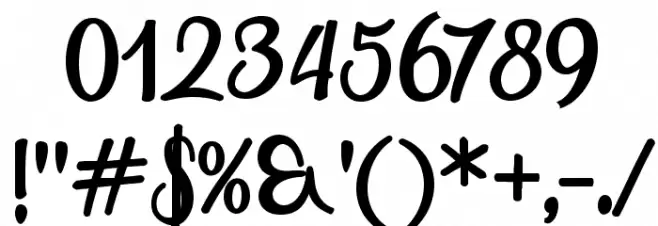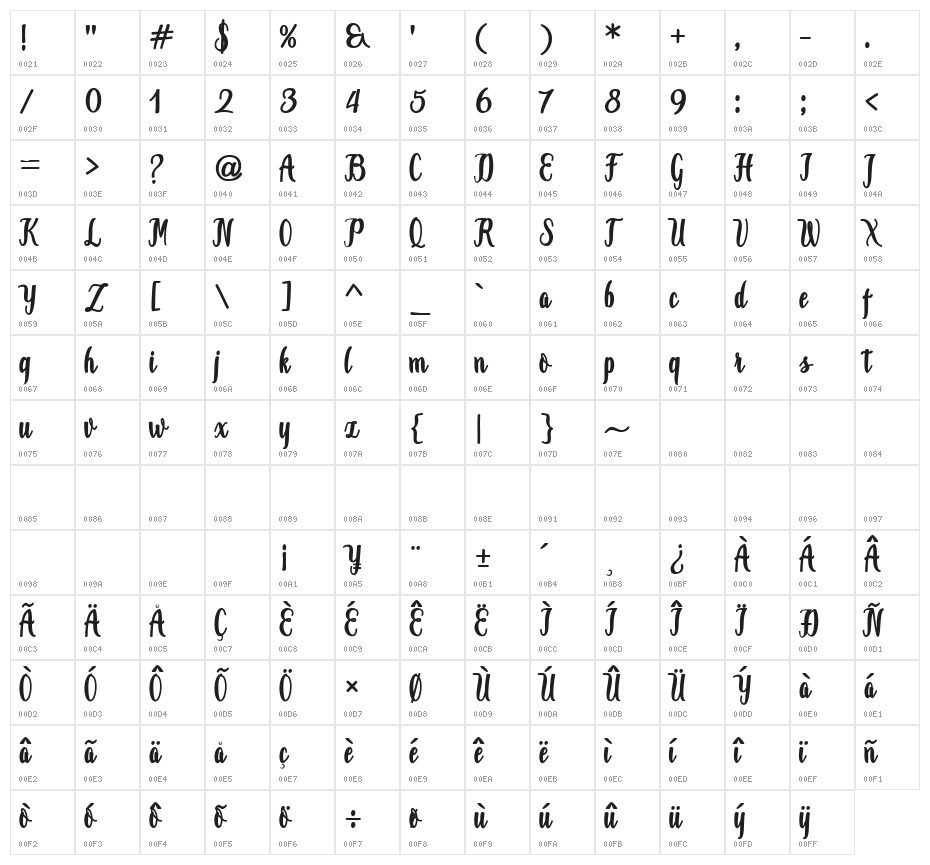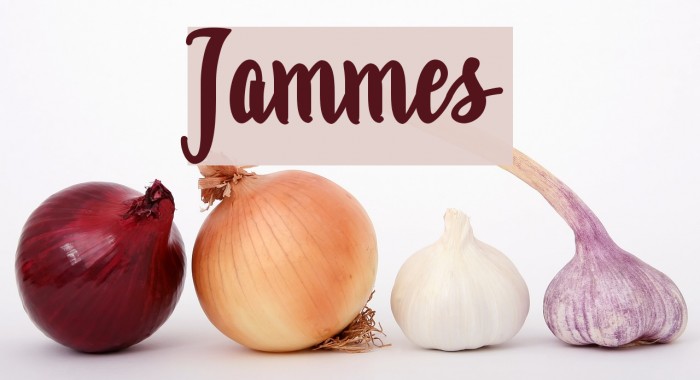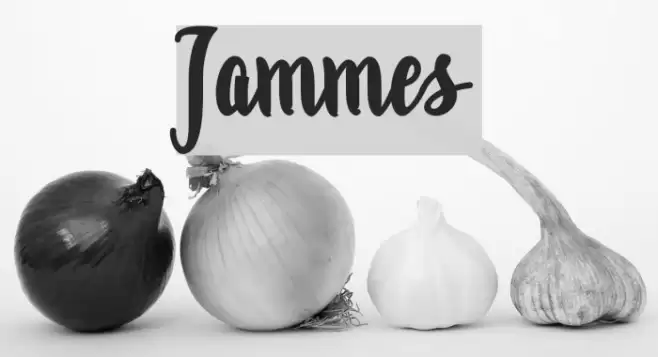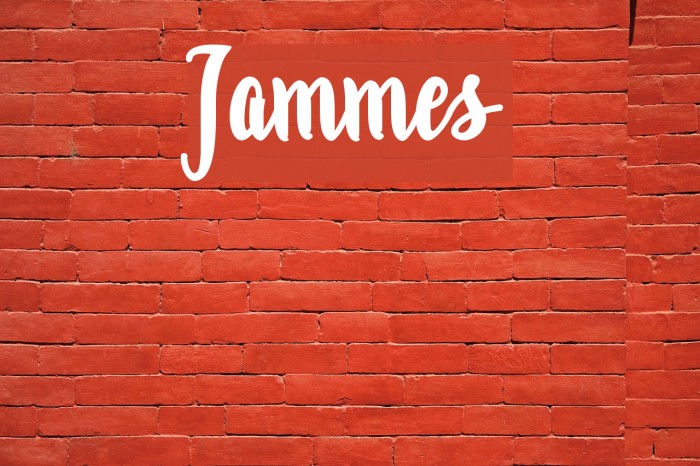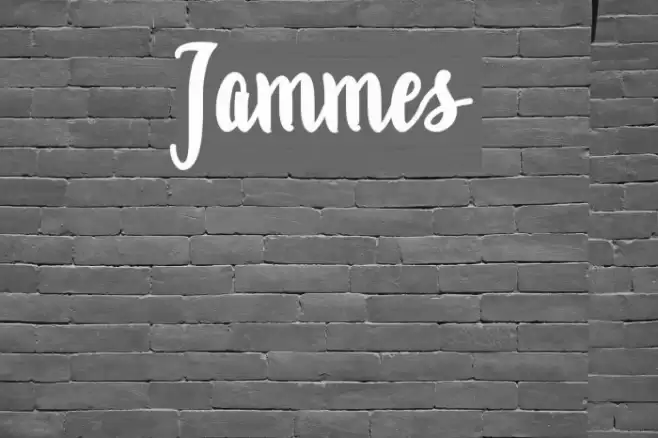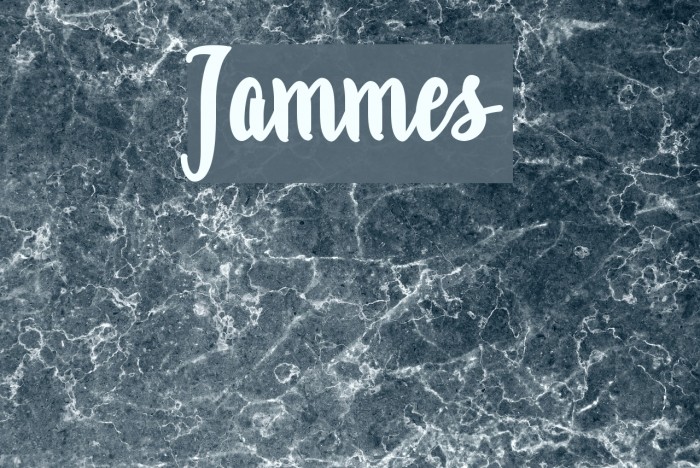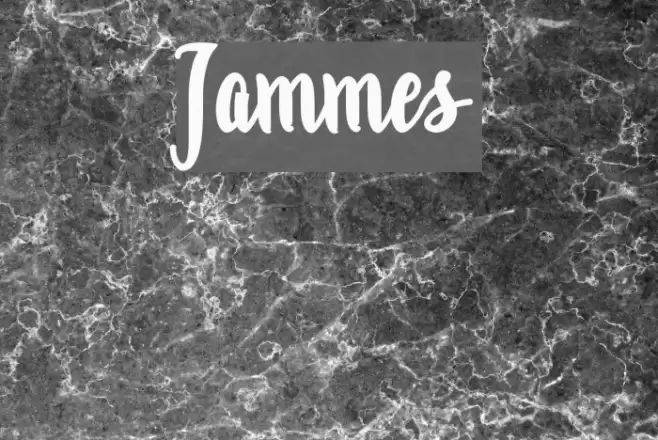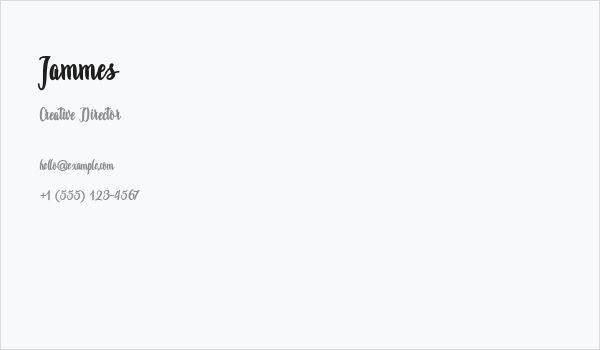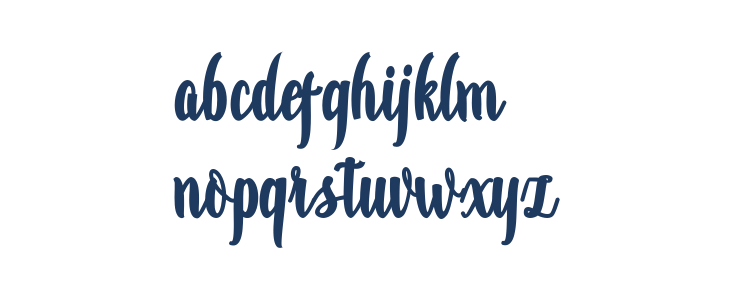
Jammes Font
Jammes Description
This font features a bold, flowing script style with a modern flair. The characters are connected, giving it a handwritten appearance, yet maintain a consistent thickness throughout. The uppercase letters are tall and elegant, while the lowercase letters are rounded and compact, creating a harmonious balance. The numerals are clear and legible, with a slight slant that complements the overall cursive design. Special characters are creatively integrated, maintaining the font's cohesive look. This font exudes a sense of elegance and sophistication, making it suitable for various creative applications.
| Proposed Projects | Ideal for wedding invitations, branding, greeting cards, and elegant packaging designs. |